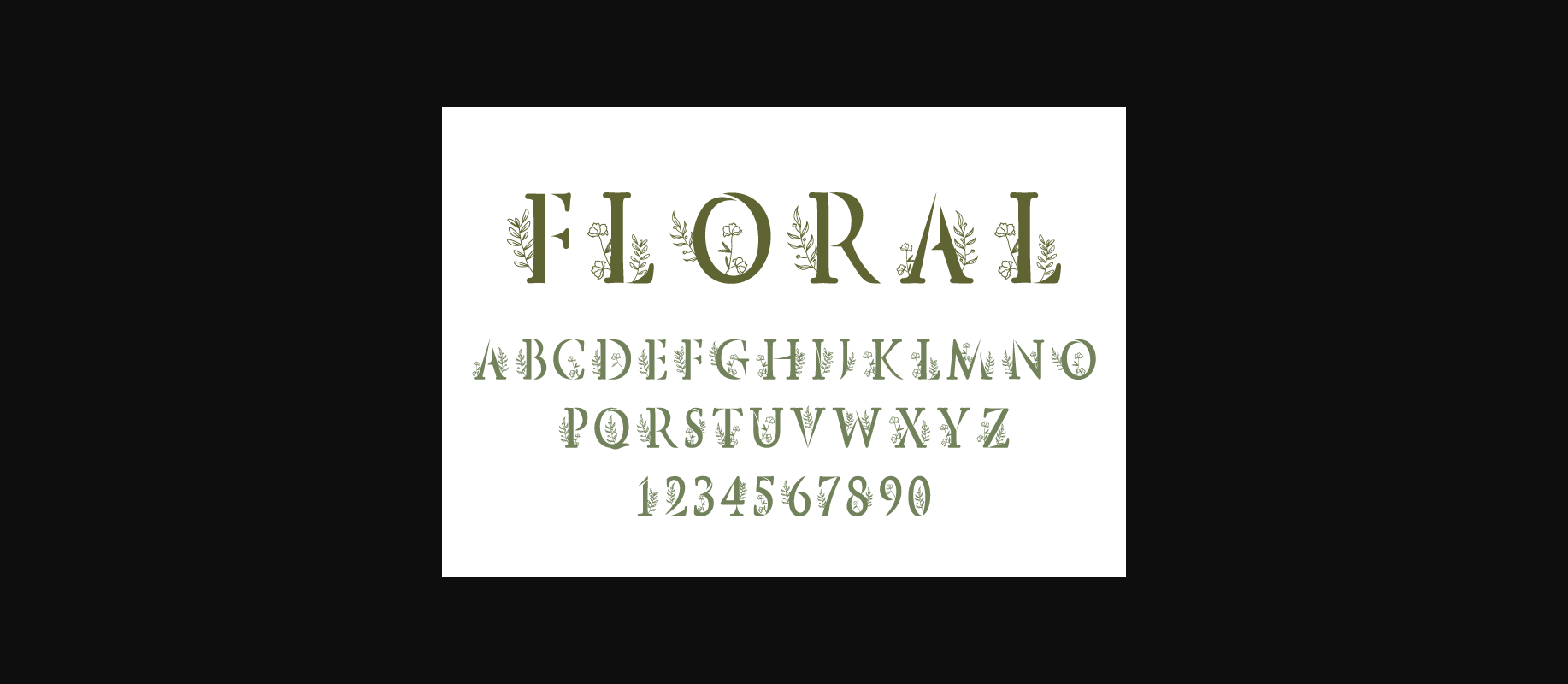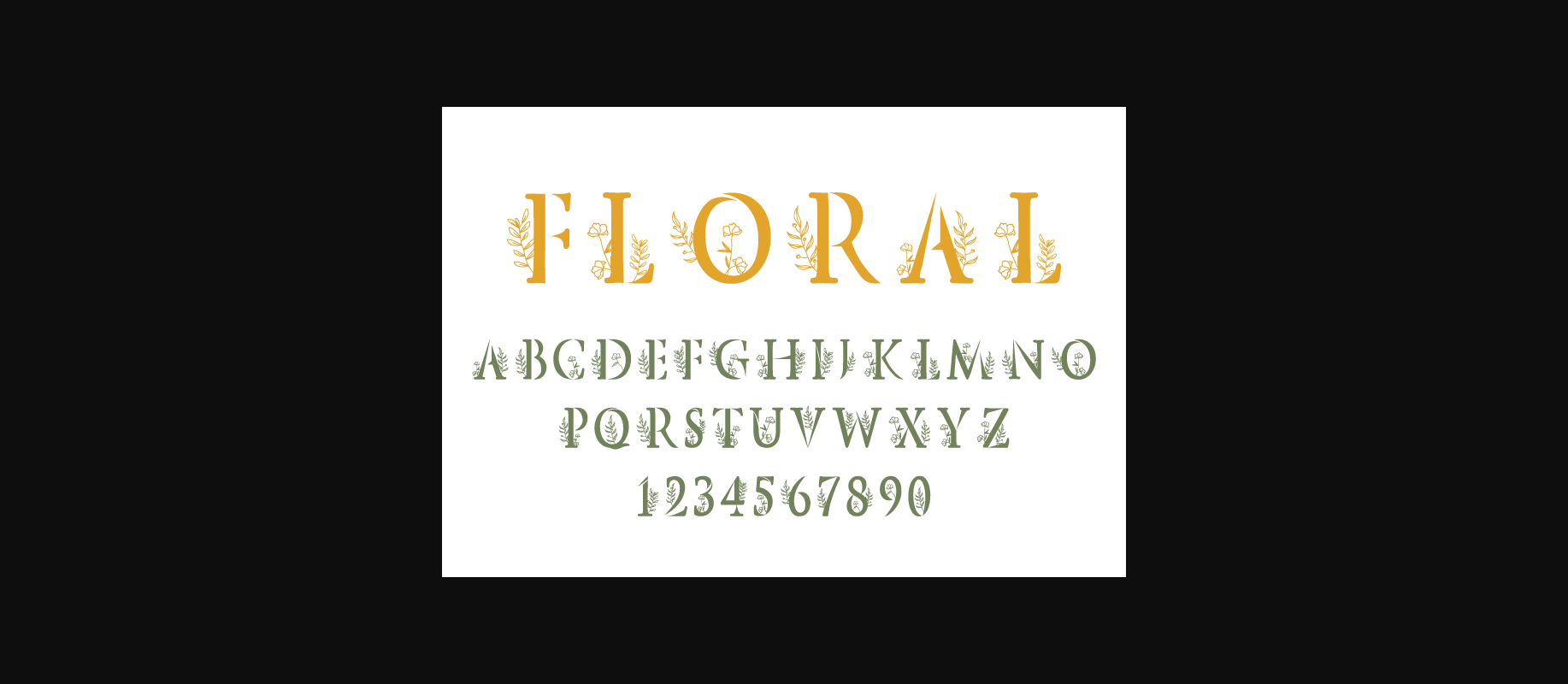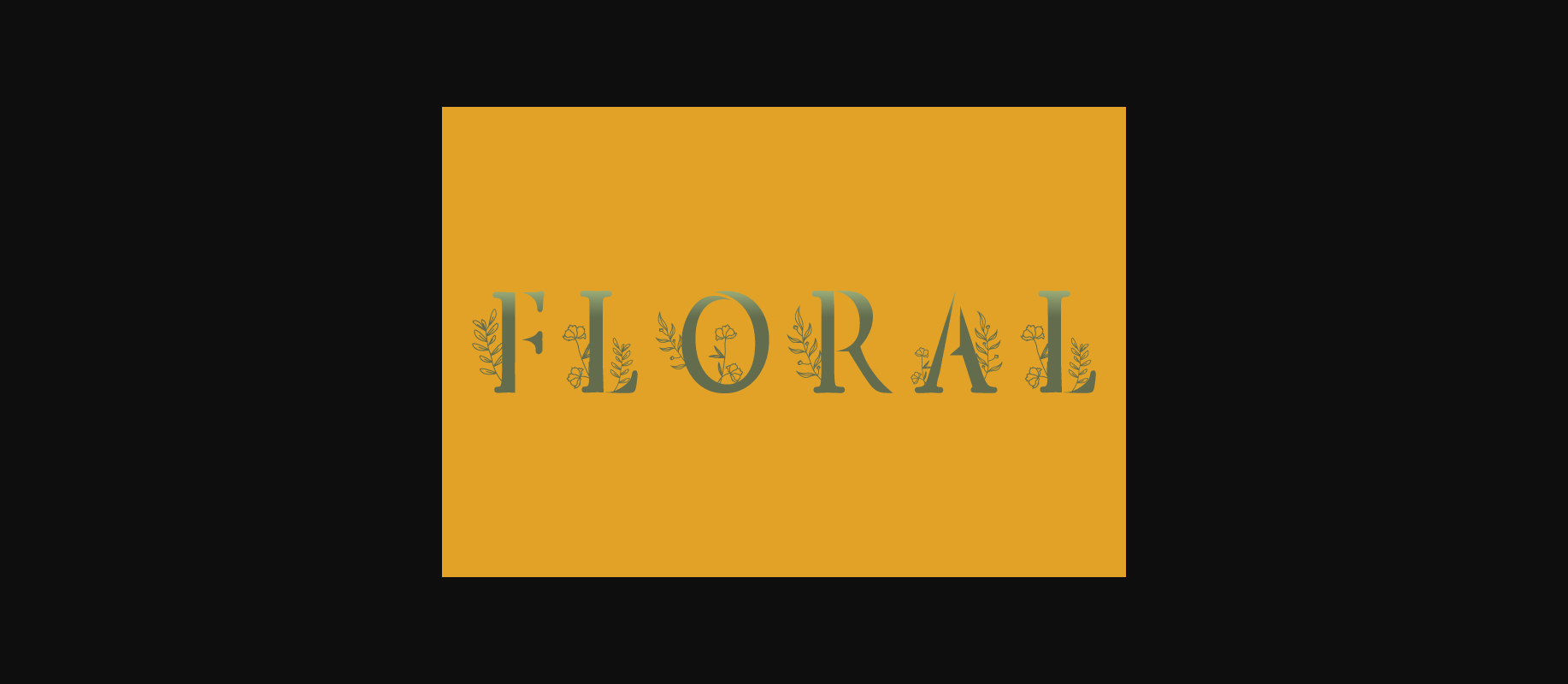
Floral Font
About Floral Font
Floral is a unique decorative font. Imagine a dance of delicate petals intertwined with the strokes of calligraphy, where each letter blooms like a flower in a secret garden of typography. The floral font whispers the language of nature, with vines of serifs and blossoming curves, evoking a sense of whimsy and elegance that transports readers to an enchanted meadow of words.